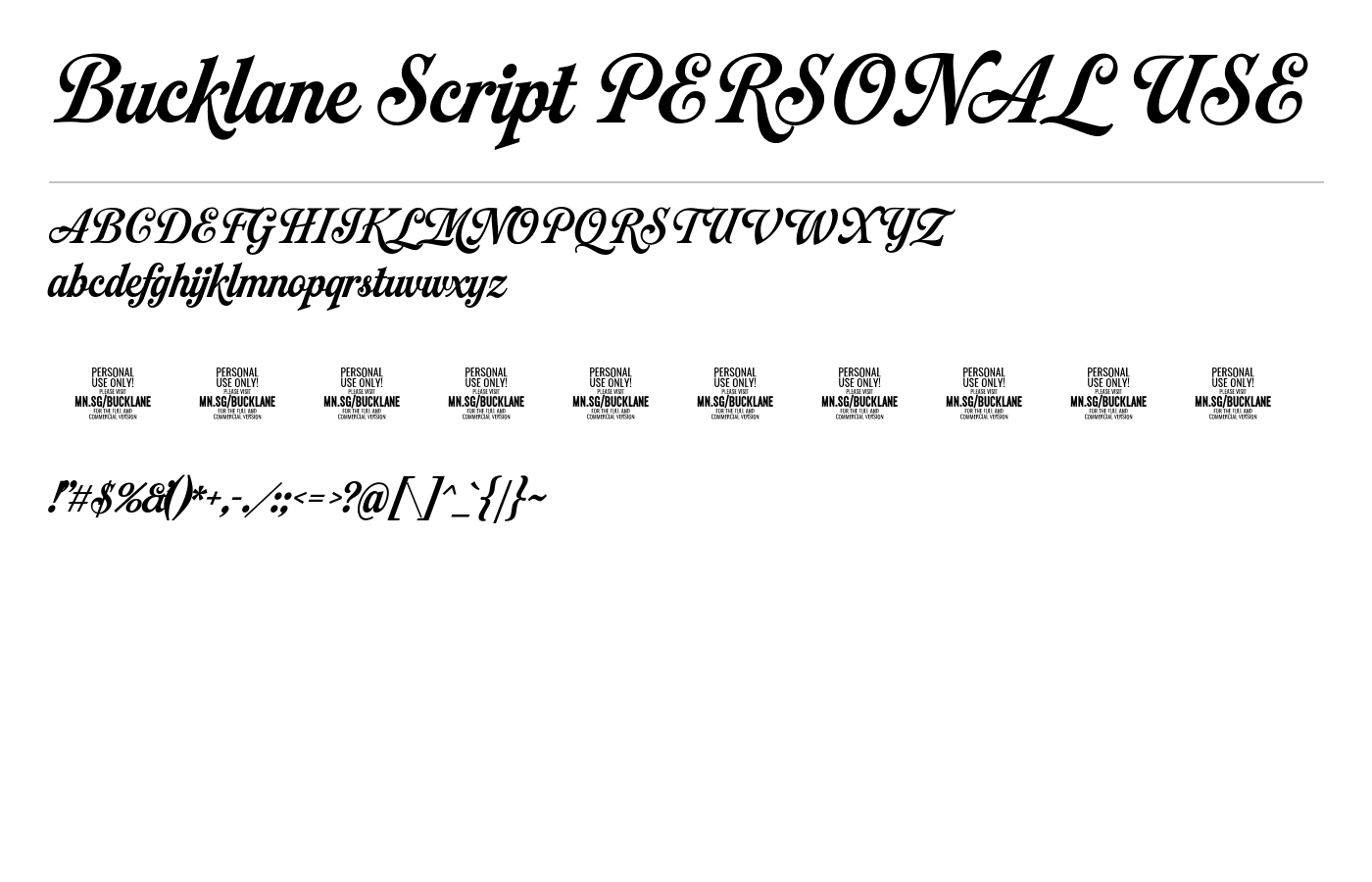
Bucklane Script is an elegant serif script font with a classic, flowing style that combines smooth curves and fine details, making it perfect for adding a touch of sophistication and charm. Its high contrast and delicate strokes give it a refined, vintage feel that works wonderfully for invitations, branding, and decorative headlines where a graceful, personal touch is desired.
Bucklane Script PERSONAL USE Font
About Bucklane Script PERSONAL USE Font